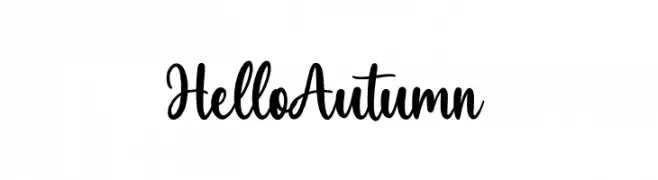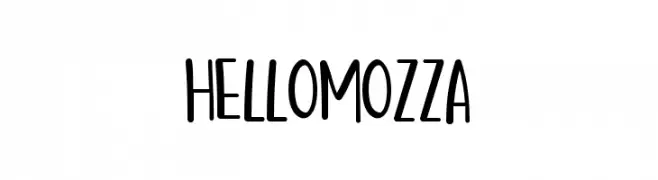
A playful, flowing script font with elegant loops and a warm, friendly feel.
A playful, bold handwritten font with dynamic strokes and a casual style.
A graceful and fluid script font with elegant, cursive characteristics.
A playful, casual handwritten font with smooth, rounded edges.
A playful, bold handwritten font with smooth curves and a casual style.
A playful and whimsical font with irregular strokes and unique character designs.
A playful, hand-drawn outline font with a whimsical and casual style.
A playful, hand-drawn font with quirky, uneven lines and lively character shapes.
A bold, decorative font with vintage flair and ornamental serifs.
A calligraphic font with bold, flowing strokes and intricate detailing.